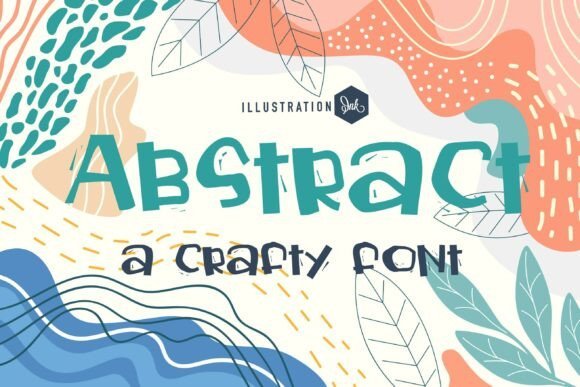
Unleash Your Inner Maker with Abstract Font
Have you ever been in a creative moment where you feel like your ideas are bursting out of your sketchbook and onto the page? The thrill of experimentation, the joy of discovery – it’s a feeling that’s hard to replicate, but one that Abstract Font captures perfectly.
Abstract Font is a hand-cut display typeface that embodies the “tactile-and-trendy” essence of modern design. With its bold, asymmetrical letterforms and quirky structural weight, it’s the perfect choice for independent art studios, boutique stationery, handmade product packaging, and high-impact social media headers. As a designer, you’ll love how Abstract Font adds a touch of personality to your projects, making it a valuable addition to your toolkit.
Whether you’re a seasoned pro or just starting out, Abstract Font is the perfect way to add some creative flair to your work. Its unique character and organic flow make it a standout choice for anyone looking to make a statement in the world of design.
Key Features of Abstract Font
- Font Family: Abstract Font is a sans-serif font family that comes in 6 weights, ranging from Light to Black.
- Character Set: Supports over 200 languages, including Latin, Cyrillic, Greek, and many Asian languages.
- Unique Characteristics: Abstract Font features a unique blend of geometric and organic shapes, making it suitable for modern and minimalist designs.
Designer Review: Abstract Font
Abstract Font is a bold and eye-catching font that can add a unique touch to any design project. I really like the ✨ unique letterforms and the way they seem to dance on the page. It’s perfect for creating a sense of movement and energy in a design.
Some of the strengths of Abstract Font include:
- ✨ Unique letterforms that add visual interest to a design
- ✨ Versatile and can be used for a variety of design projects, from logos to posters
- ✨ Supports multiple languages and has a wide range of character sets
- ⚠️ May be difficult to read in smaller sizes due to its bold and unconventional design
- ⚠️ May not be suitable for designs that require a more traditional or formal look
- ⚠️ Some users may find the font difficult to use due to its unusual letterforms
Overall, I think Abstract Font is a great choice for designers who want to add some excitement and energy to their designs. While it may have some limitations, its unique design and versatility make it a valuable addition to any design library.